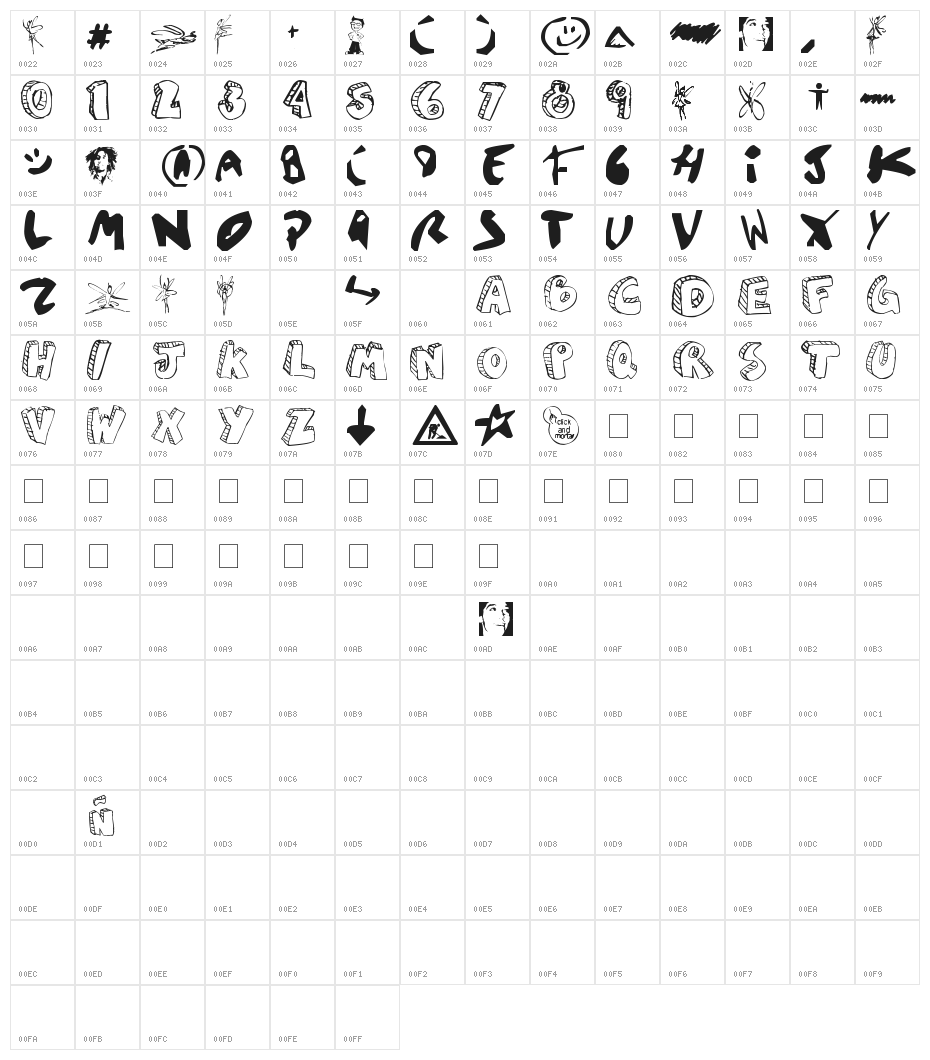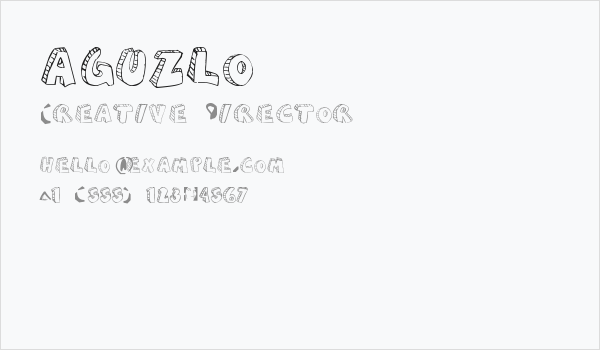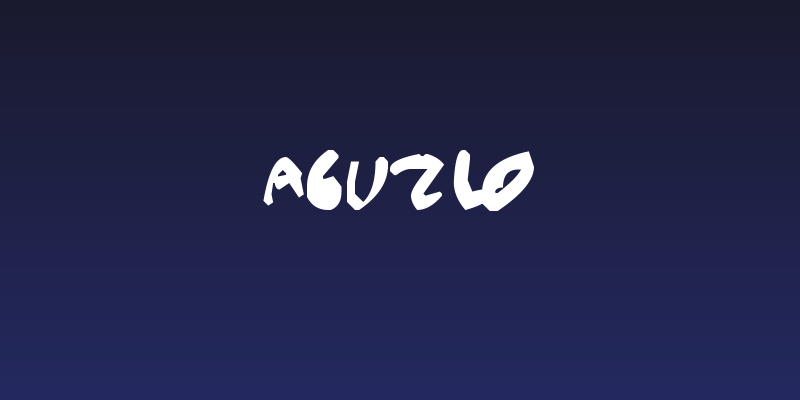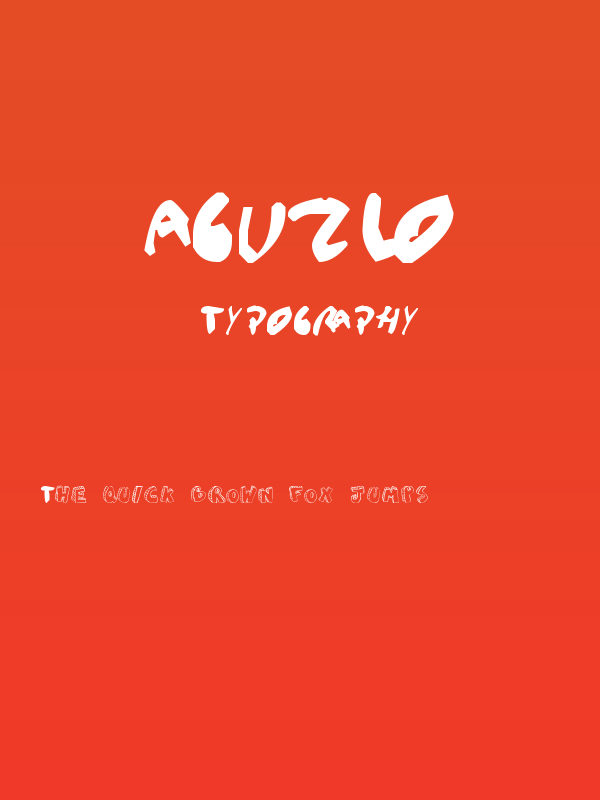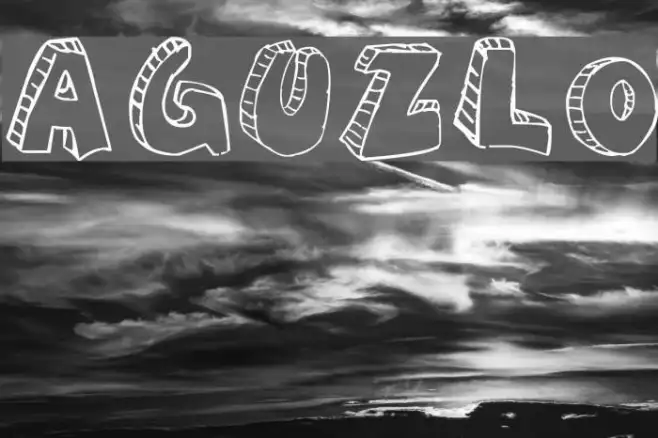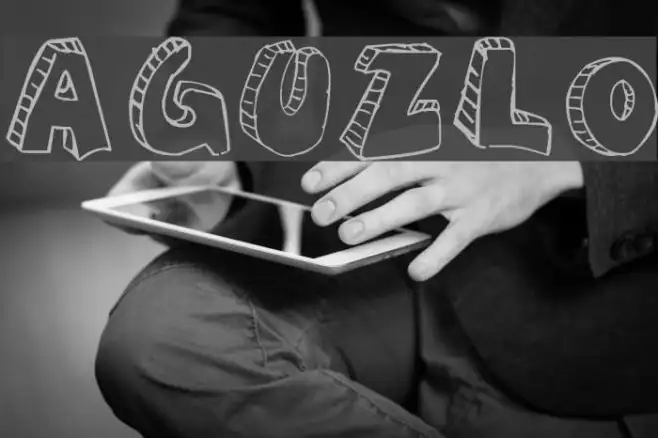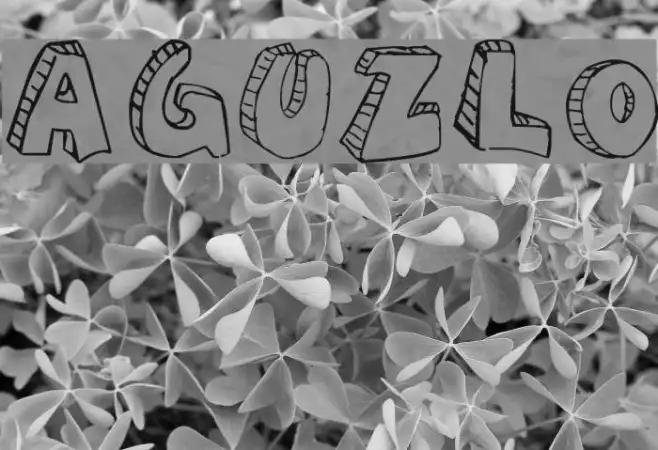
aguzlo Font
aguzlo Description
This font is a bold and playful display typeface with a hand-drawn aesthetic. The uppercase letters are characterized by their thick, uneven strokes and dynamic shapes, giving them a lively and energetic feel. The lowercase letters maintain this playful style, with a slightly more compact design. The numbers are similarly bold and feature a three-dimensional effect, adding depth and interest. Special characters are creatively designed, incorporating unique illustrations and symbols that enhance the font's whimsical nature. Overall, this font exudes a sense of fun and creativity, making it ideal for projects that require a bold and unconventional look.
| Overall Style | Playful, Creative, Hand-drawn |
| Proposed Projects | Ideal for children's books, comic strips, playful branding, and creative posters. |